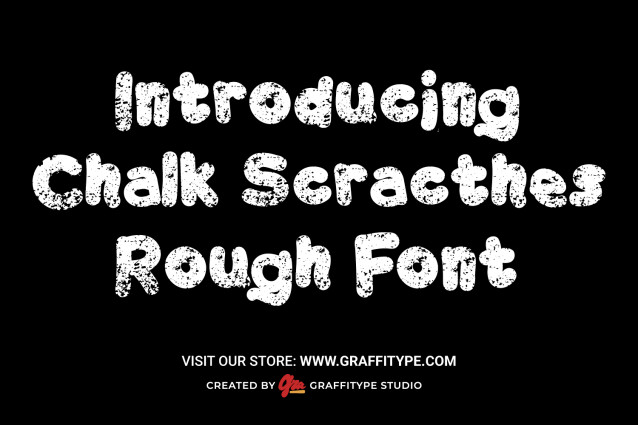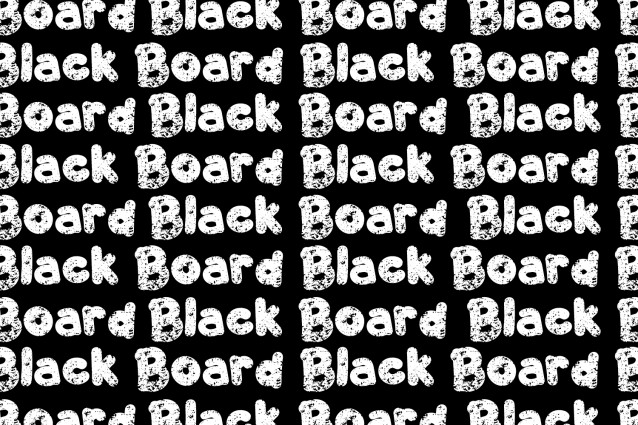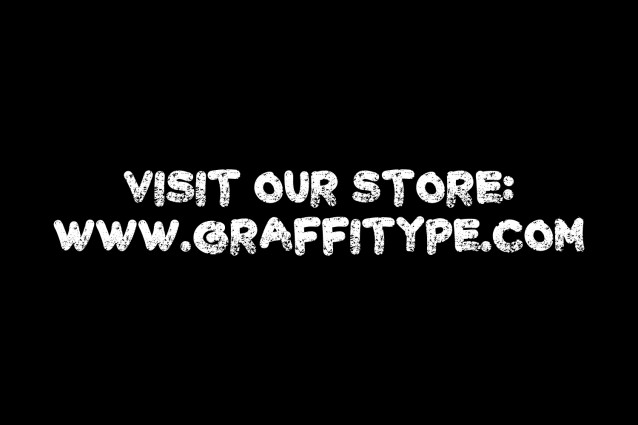
Chalk Scratches Rough Font
Chalk Scratches Rough Font captures the raw, textured feel of hand-drawn chalk on a dusty blackboard. With its rough edges, uneven strokes, and distressed details, it exudes an organic and spontaneous character—perfect for designs that want to feel authentic, bold, and handmade. Whether evoking the nostalgia of classroom doodles or the grit of street-style lettering, this font delivers a strong visual impact.